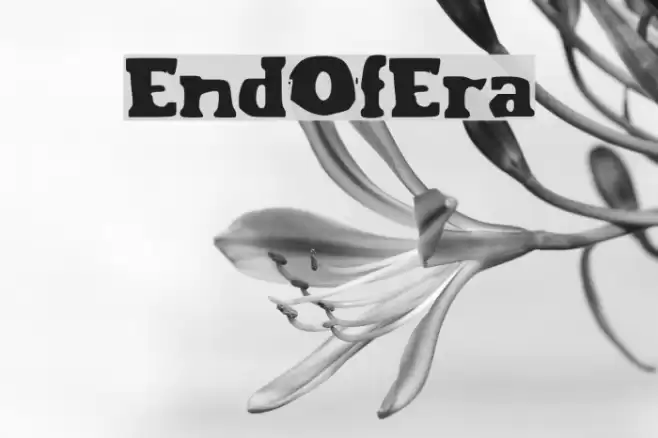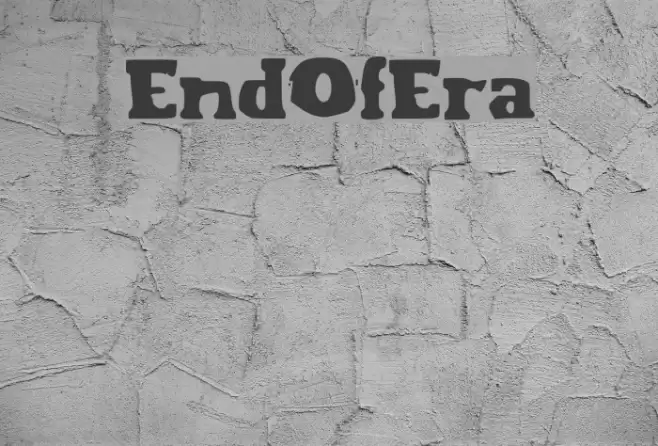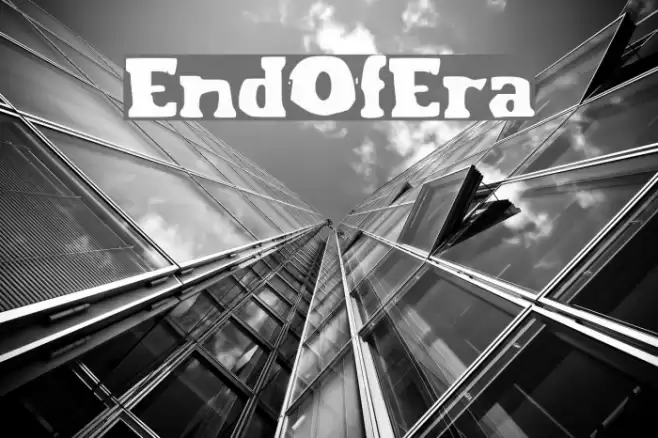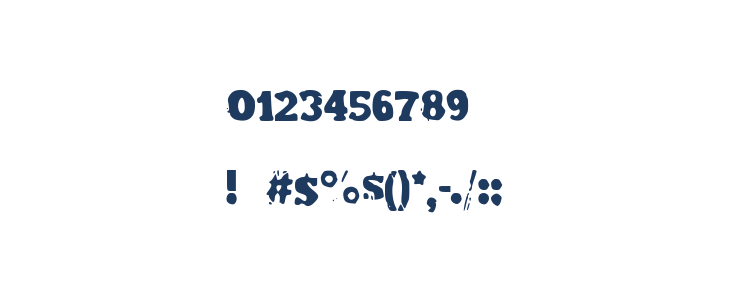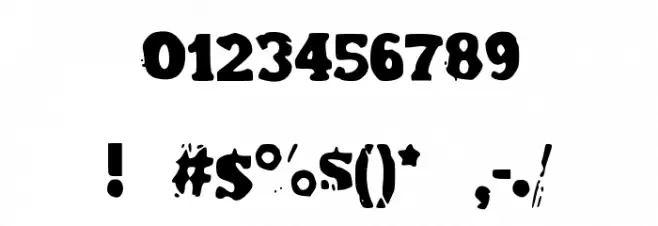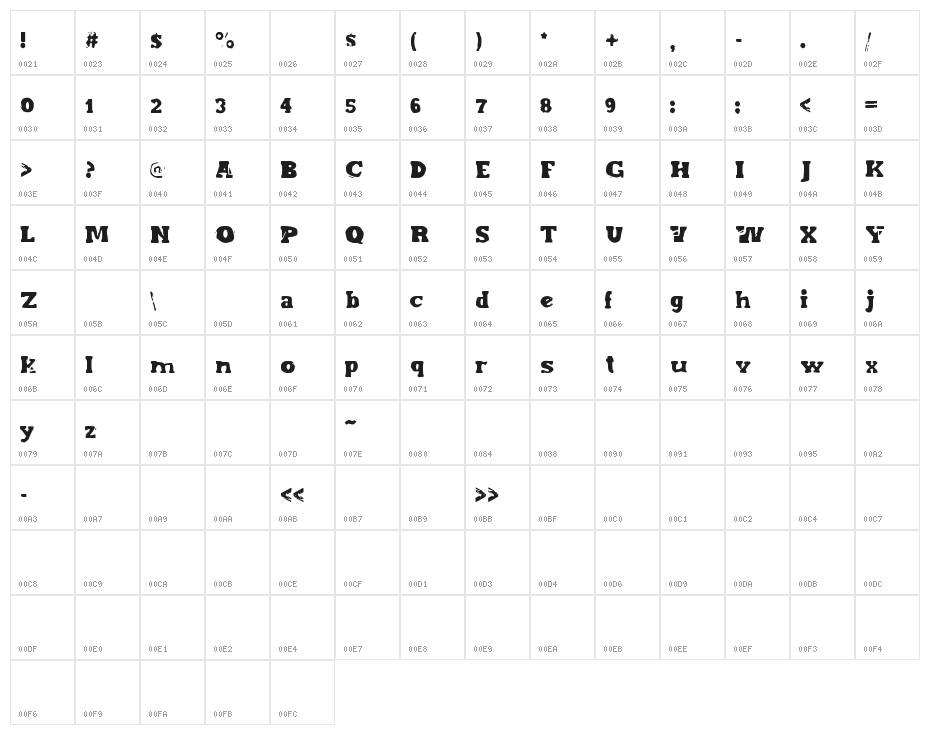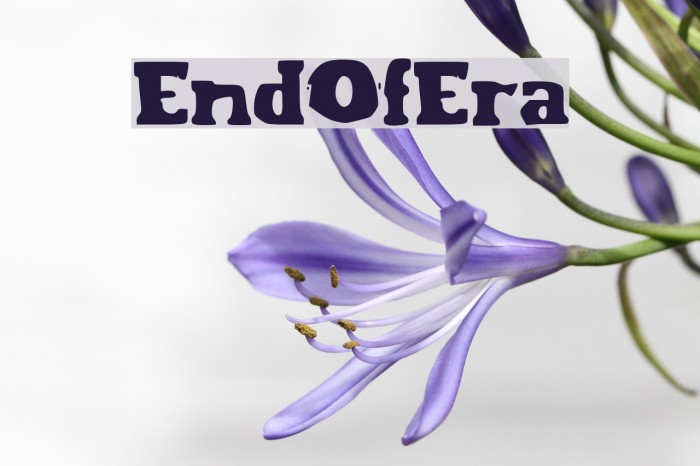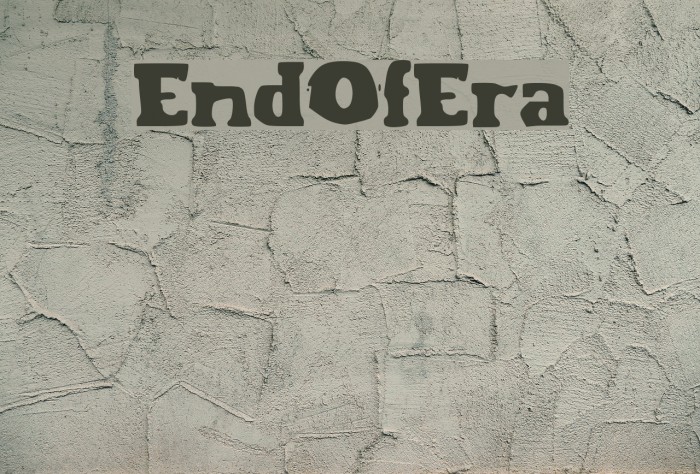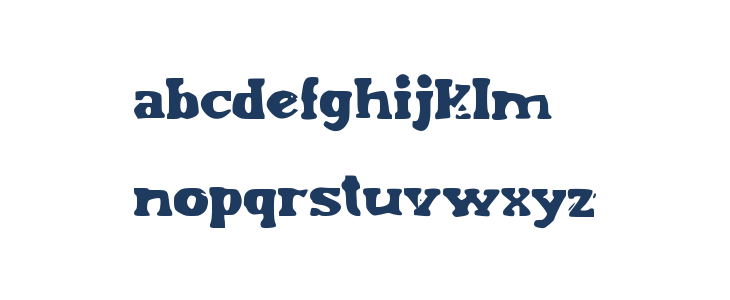
EndOfEra Font
EndOfEra Description
This font exhibits a bold and decorative style with a strong presence. The characters are heavily stylized, featuring irregular edges and a distressed appearance that gives it a vintage, worn look. The uppercase and lowercase letters maintain a consistent weight, contributing to a cohesive design. The numerals and special characters follow the same aesthetic, ensuring uniformity across all glyphs. This font's unique character makes it ideal for projects that require a touch of nostalgia or a bold statement.
A bold, decorative font with a vintage, distressed style from Distorted Eroded fonts.
- Proposed Projects: Ideal for vintage-themed posters, album covers, branding for retro products, or any design needing a bold, nostalgic touch.
- Overall Style: Vintage